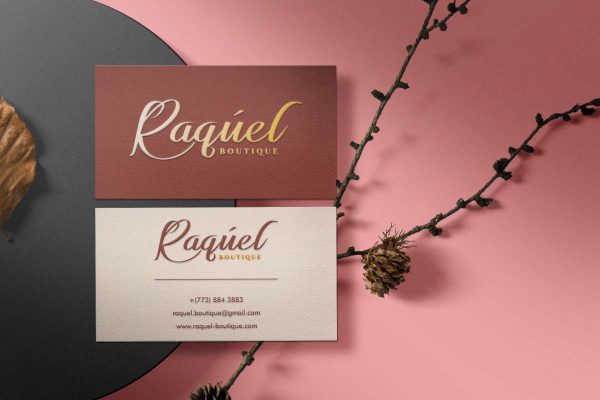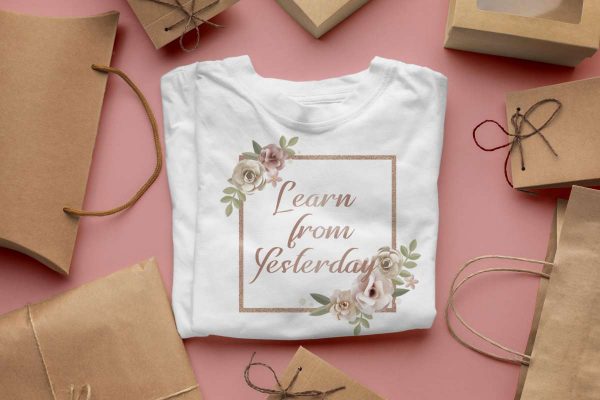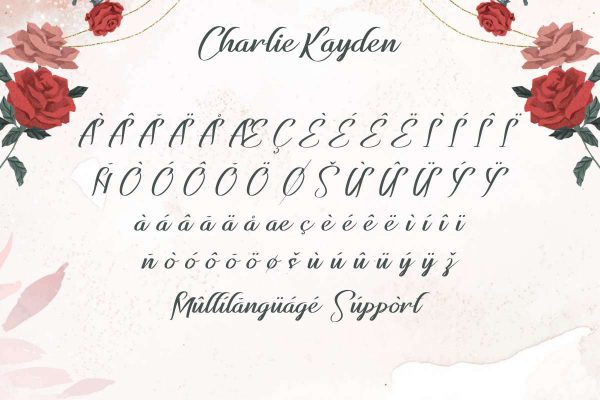
Charlie Kayden Font
Charlie Kayden Font is a stylish calligraphy font that will be stunning for brandings, business cards, headline, label, quotes, and other design needs a classy handwriting calligraphy.
Charlie Kayden Font is a stylish calligraphy script font that comes with elegant characters, making it the ideal match for many projects.You can see the demo font below. You can also input any word you want so you can see what it will look like :
Each letter flows seamlessly,ensuring every word you write feels like a personal masterpiece.With his smooth ligatures and natural handwritten style,Charlie Kayden captures the warmth and authenticity your audience craves.You gain the perfect balance between readability and artistic flair, making your project stand out in a crowded market,On the zip package You will get:
• Multilingual support